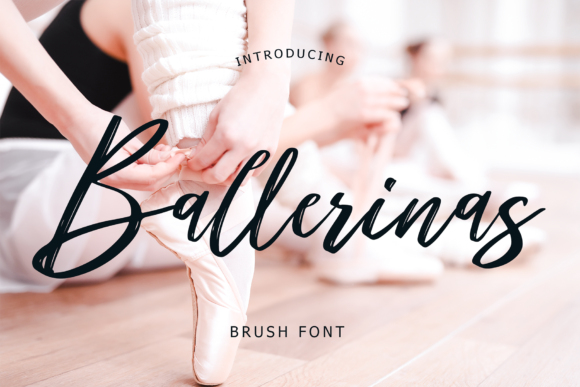
Unleash the captivating charm of the Ballerinas Font: a masterpiece of modern calligraphy that will elevate your design aspirations.
Immerse yourself in the beauty of its elegant curves and handwritten strokes. Ballerinas is not just a font – it's a gateway to a world of limitless creativity. With its contemporary flair and timeless sophistication, it will transform your logos, branding, and social media presence into works of art.
The Ballerinas Font is more than just a collection of letters; it's an expression of your unique style. Its enchanting flow and effortless grace will add a touch of magic to every project.
Whether you're a seasoned designer or just starting your creative journey, the Ballerinas Font is your perfect companion. Its versatility knows no bounds, adapting seamlessly to a myriad of designs. Let your imagination soar and watch as your projects take on a life of their own.
Experience the allure of the Ballerinas Font today. Dive into its enchanting world and let your creativity bloom. Each character is a stroke of genius, waiting to be unleashed upon the world.
Don't let your designs settle for ordinary – embrace the extraordinary with the Ballerinas Font. Its captivating charm will leave an unforgettable impression on your audience, inspiring them to fall in love with your creations.